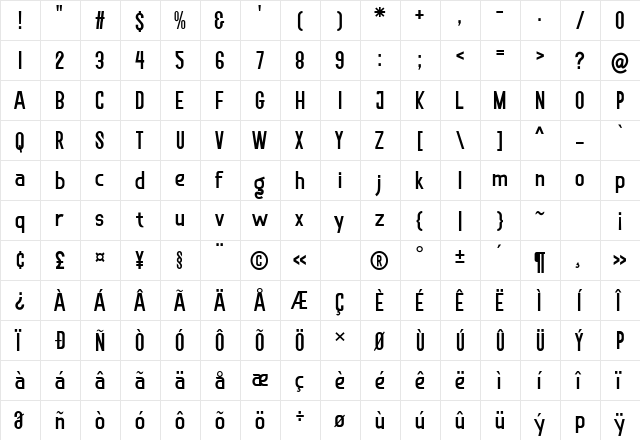
Soegja Regular
Design Context for Soegja Typeface
Soegja is a composed and adaptable typeface that performs quietly and consistently across a wide range of design contexts.